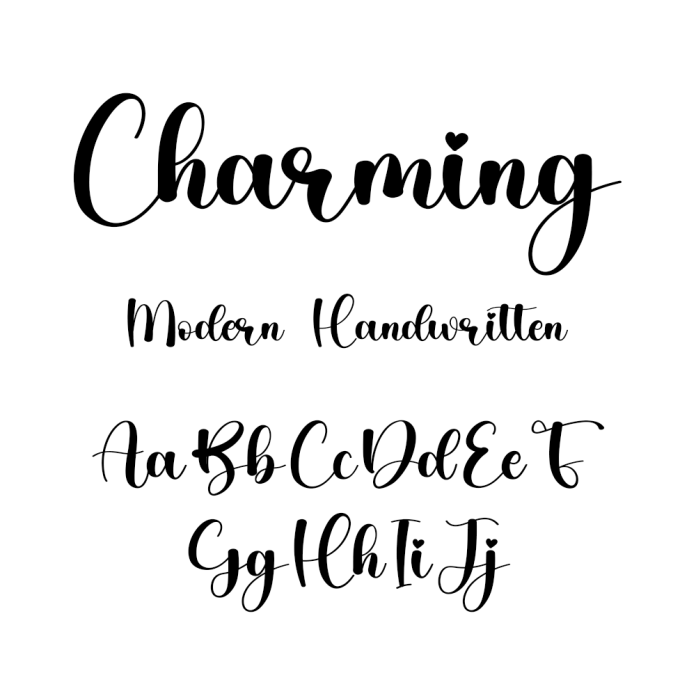
Charming is a beautifully crafted handwritten script font that exudes elegance and modernity. With its smooth, flowing strokes and well-balanced letterforms, this font strikes the perfect balance between classic charm and contemporary style.